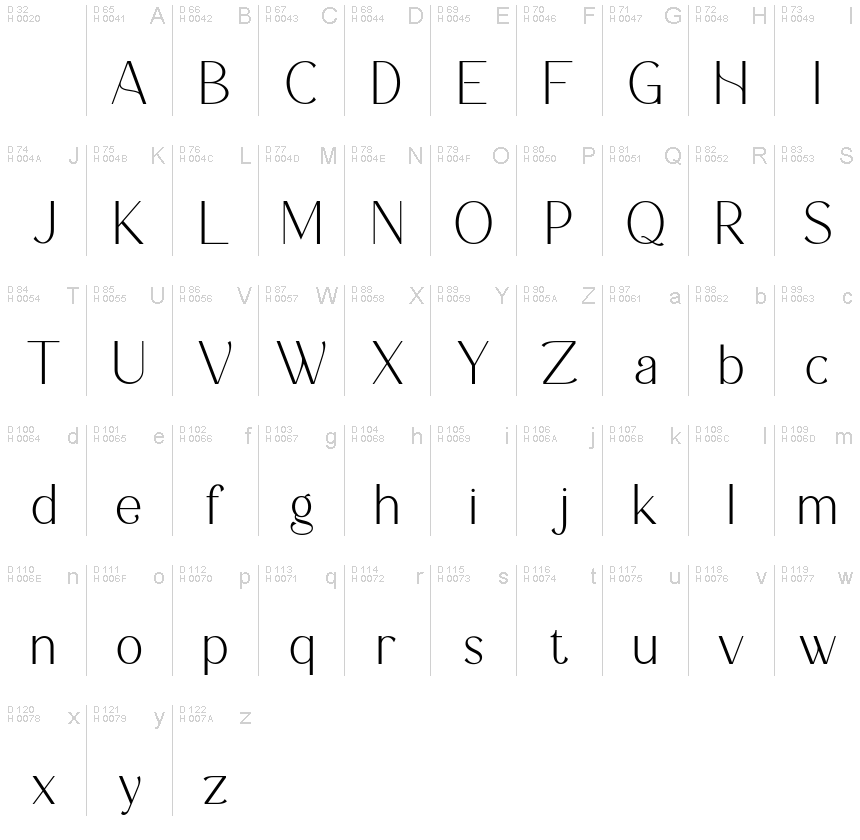
Vermina Regular
Vermina, a captivating sans-serif font designed by Achmad Yani, exudes a delicate, airy elegance. Its light stroke weights and subtle curves create a refined and contemporary aesthetic, lending a sense of sophistication to any design. The clean lines and well-balanced letter forms evoke a modern sensibility, while the font's overall personality conveys a sense of understated sophistication.
Vermina's versatility makes it a versatile choice for a variety of design applications. Its refined and legible qualities make it well-suited for use in branding, editorial, and web design projects, where a polished and professional appearance is desired. Furthermore, Vermina's adaptability allows it to seamlessly integrate into both formal and informal contexts, making it a reliable selection for a wide range of creative endeavors.